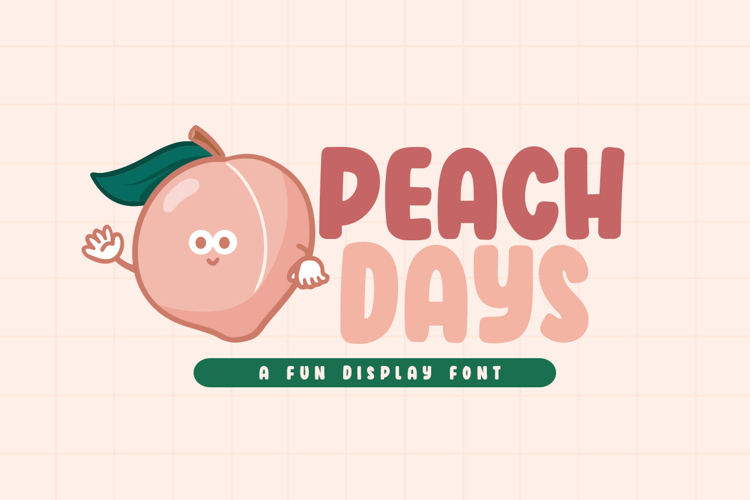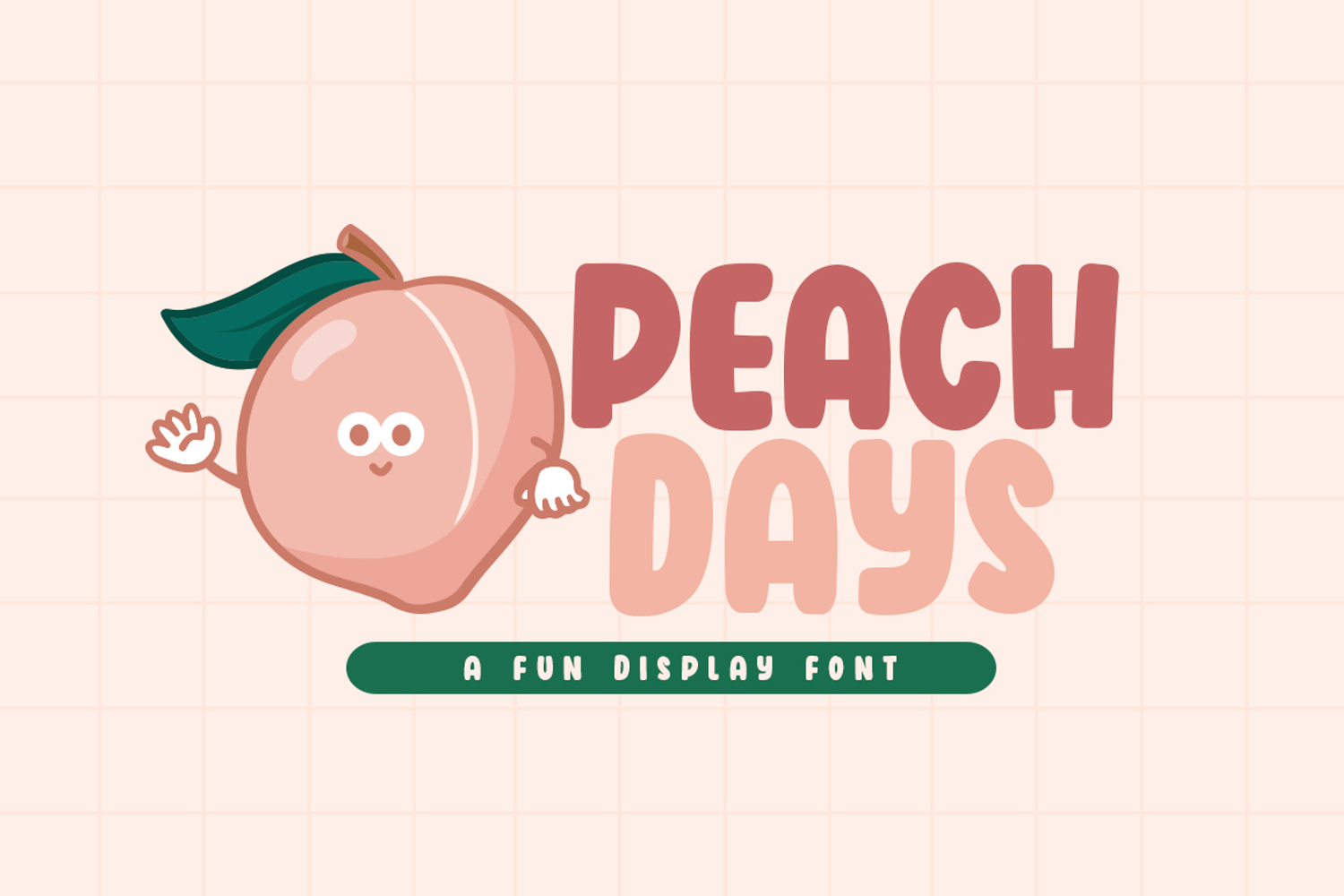
Introducing, Peach Days font a fun display typeface with cheerful theme for your fun project. Peach Days font suitable for logo, branding, greeting card, poster and any design that you create.